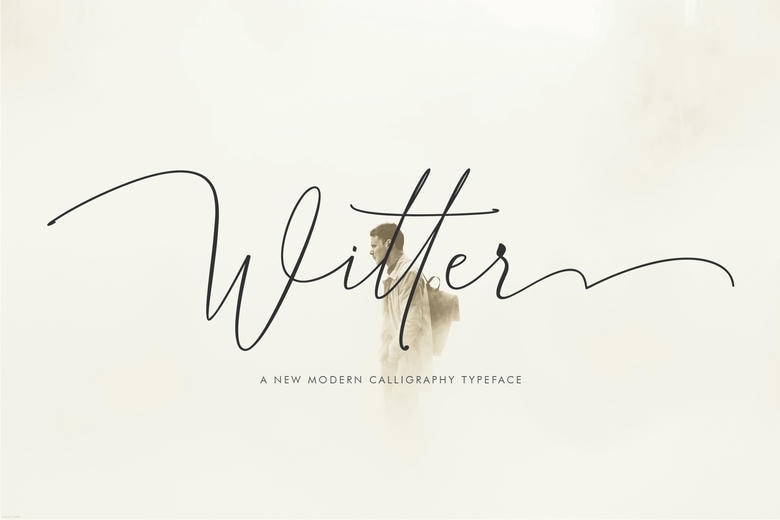
The Witters is a lovely calligraphy typeface, which is combining the style of classic calligraphy with a modern style. It has a dancing baseline and will add a modern and elegant touch to your designs.
Witter Calligraphy Script Font